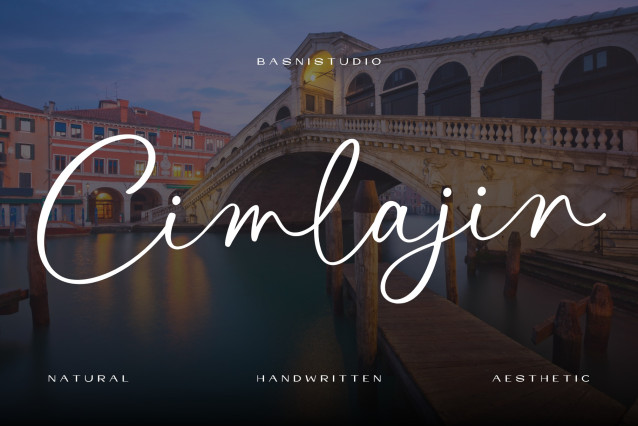
Cimlajin Font
Cimlajin Font – Handwritten Font Created with real pen strokes for a natural look and casual touch to everything from branding and social media to invitations and packaging.